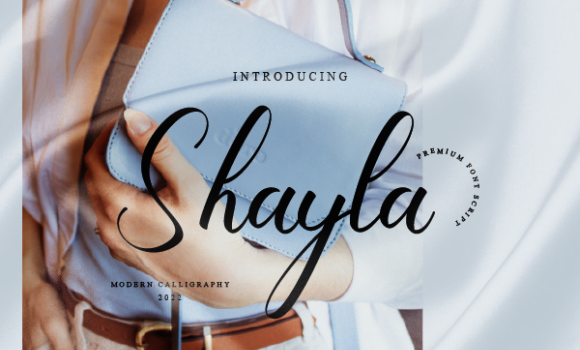
shayla
Shayla Font – Free Download Introduction to Shayla Font Shayla is a delicate and fashionable script font. 📸 Preview Gallery 6 images 📌 Product Name Shayla Font 👤 Author fiqiart 📂 Category Explore ⬇️ Download Shayla Font FREE Free Download